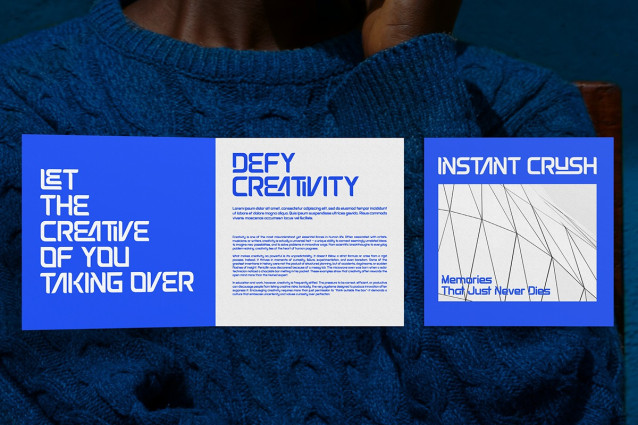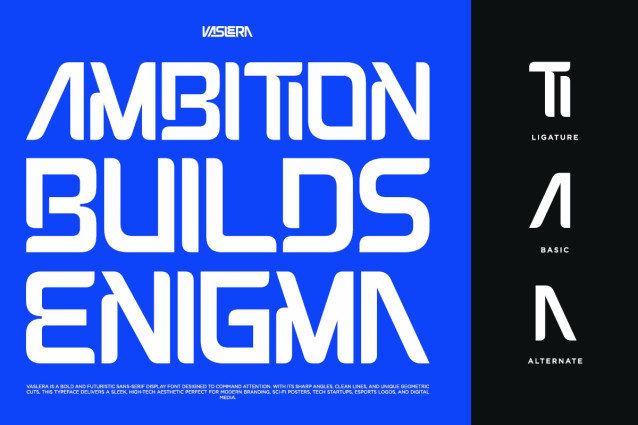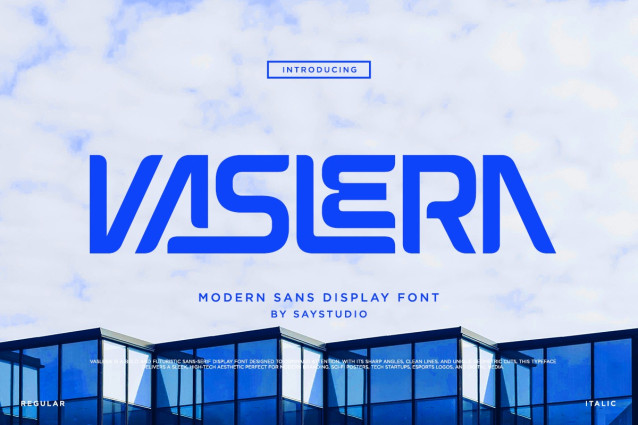
Vaslera – Futuristic Modern Sans Font
Vaslera is a futuristic modern sans display font crafted with bold geometric construction and sleek sci-fi aesthetics. Featuring clean angular forms, distinctive letter shapes, and a highly recognizable visual identity, Vaslera is designed to deliver powerful headlines and memorable branding. Its contemporary style balances readability with innovation, making it a perfect choice for creators seeking a bold technological appearance.